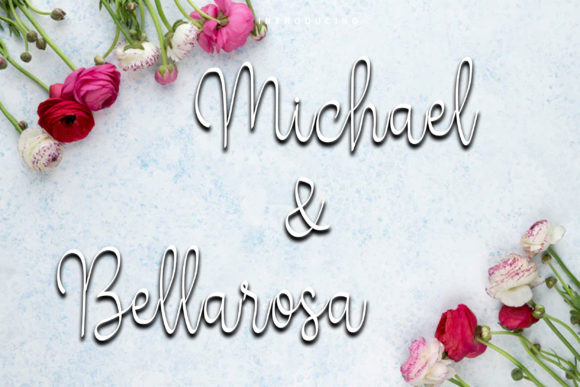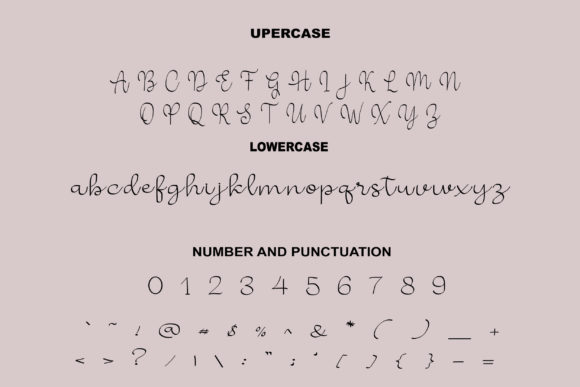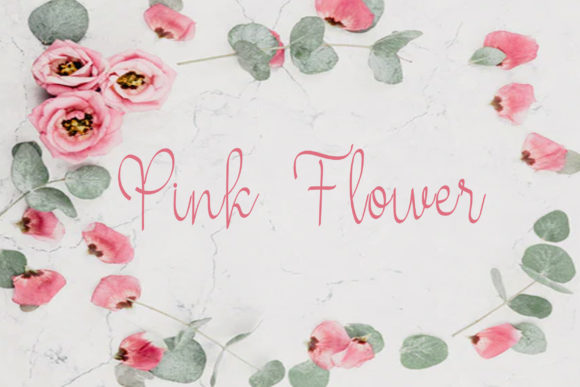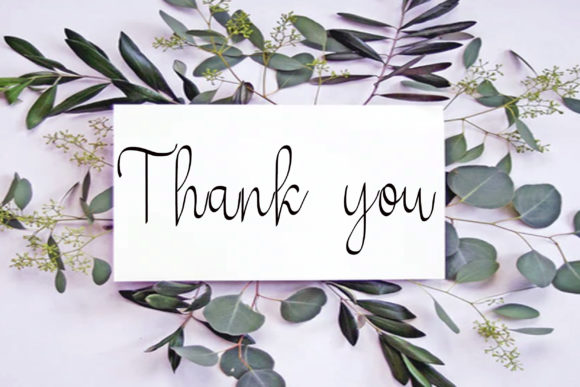
Introducing Happy Engagement: The Ultimate Chic Script Font for Elegant Designs
Are you a designer or crafter looking for a font that exudes sophistication and elegance? Look no further than Happy Engagement, a stunning script font that is sure to elevate your designs to the next level. With its stylish alternates and ligatures, Happy Engagement is the perfect match for any project that requires a touch of refinement and poise.
The Characteristics of Happy Engagement
Happy Engagement is a beautifully crafted script font that boasts a range of impressive features. Its elegant letterforms are designed to flow seamlessly together, creating a sense of continuity and harmony that is perfect for creating stunning headlines, titles, and quotes.
One of the standout features of Happy Engagement is its extensive range of stylish alternates and ligatures. These alternates and ligatures allow you to customize your text and add a touch of personality to your designs. Whether you’re looking to create a romantic wedding invitation or a sophisticated luxury brand logo, Happy Engagement has the flexibility and versatility to help you achieve your design goals.
The Benefits of Using Happy Engagement
So why choose Happy Engagement for your design projects? Here are just a few benefits of using this gorgeous script font:
- Elegance and Sophistication: Happy Engagement exudes elegance and sophistication, making it perfect for high-end brands, luxury products, and special occasions.
- Flexibility and Versatility: With its extensive range of alternates and ligatures, Happy Engagement can be used for a wide range of design projects, from wedding invitations to business logos.
- Easy to Read: Despite its elegant and refined appearance, Happy Engagement is surprisingly easy to read, making it perfect for use in both digital and print designs.
- Unique and Eye-Catching: Happy Engagement’s stylish alternates and ligatures ensure that your designs will stand out from the crowd and grab attention.
How to Use Happy Engagement in Your Designs
Using Happy Engagement in your designs is easy. Here are a few tips to get you started:
- Pair it with a Sans Serif Font: For a striking contrast, pair Happy Engagement with a clean sans serif font for body text.
- Experiment with Alternates and Ligatures: Don’t be afraid to get creative with Happy Engagement’s alternates and ligatures to add a touch of personality to your designs.
- Use it for Headlines and Titles: Happy Engagement is perfect for use in headlines and titles, where its elegance and sophistication can really shine.
Happy Engagement is a font that is specifically designed with designers and crafters in mind. Whether you’re creating digital designs or handmade crafts, Happy Engagement is the perfect choice for anyone looking to add a touch of elegance and sophistication to their work.
From wedding planners and stationery designers to crafters and DIY enthusiasts, Happy Engagement is the perfect font for anyone looking to create beautiful, eye-catching designs that exude refinement and poise.
In conclusion, Happy Engagement is a truly exceptional script font that is sure to become a staple in any designer’s or crafter’s toolkit. With its elegant letterforms, stylish alternates, and ligatures, Happy Engagement is the perfect choice for anyone looking to add a touch of sophistication and elegance to their designs.